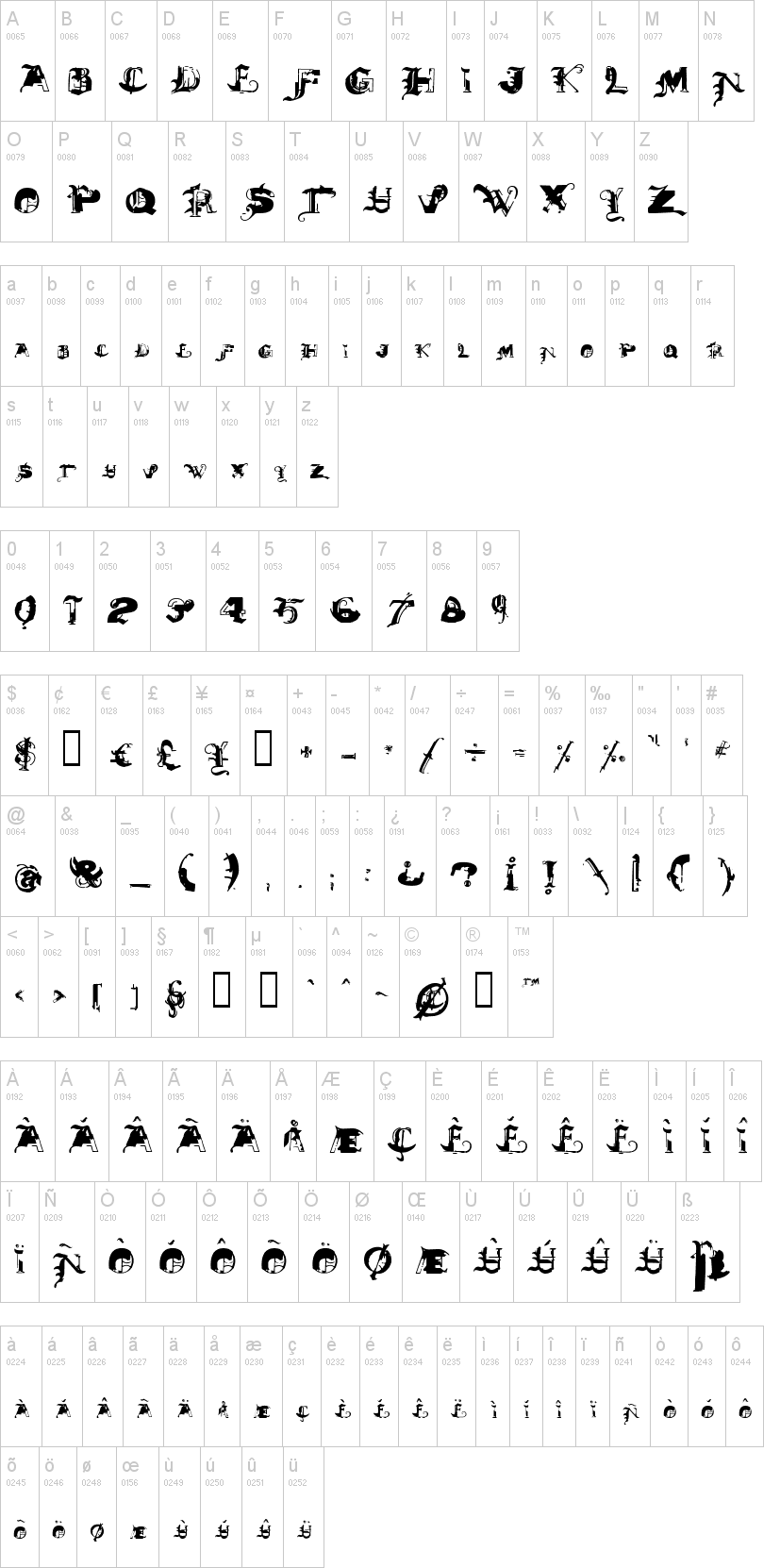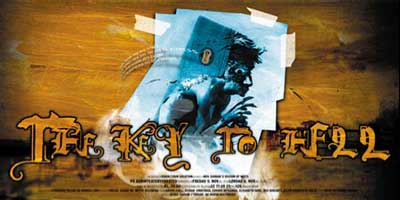
Note of the authorHope you like DeatMix, it's based on the fantastic Letraset type sheets. It would be great to see a sample of how you have used it in your design (hans@fontourist.com).